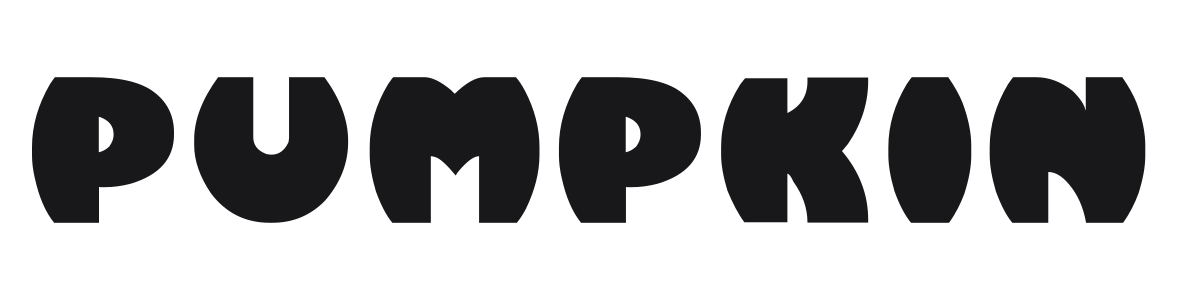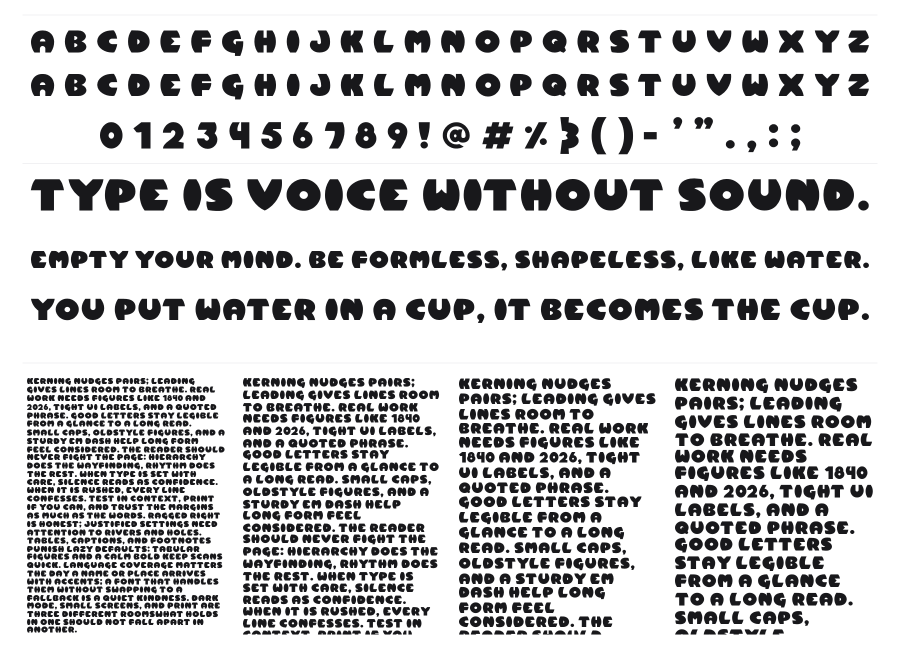
Pumpkin
by Bam O
Pumpkin is a chunky, rounded display face from Bam O with thick, playful letterforms that carry a lot of visual warmth. Everything about it feels soft and oversized, like letters made from something you could squeeze. It works best in headlines, posters, and children's projects where you want bold type that stays friendly and fun.